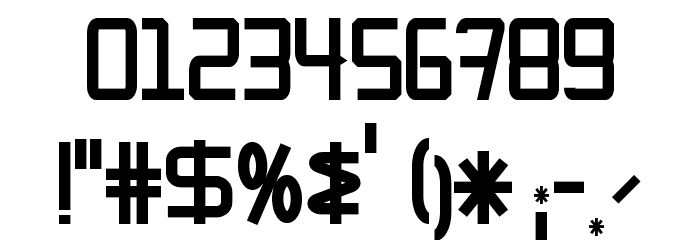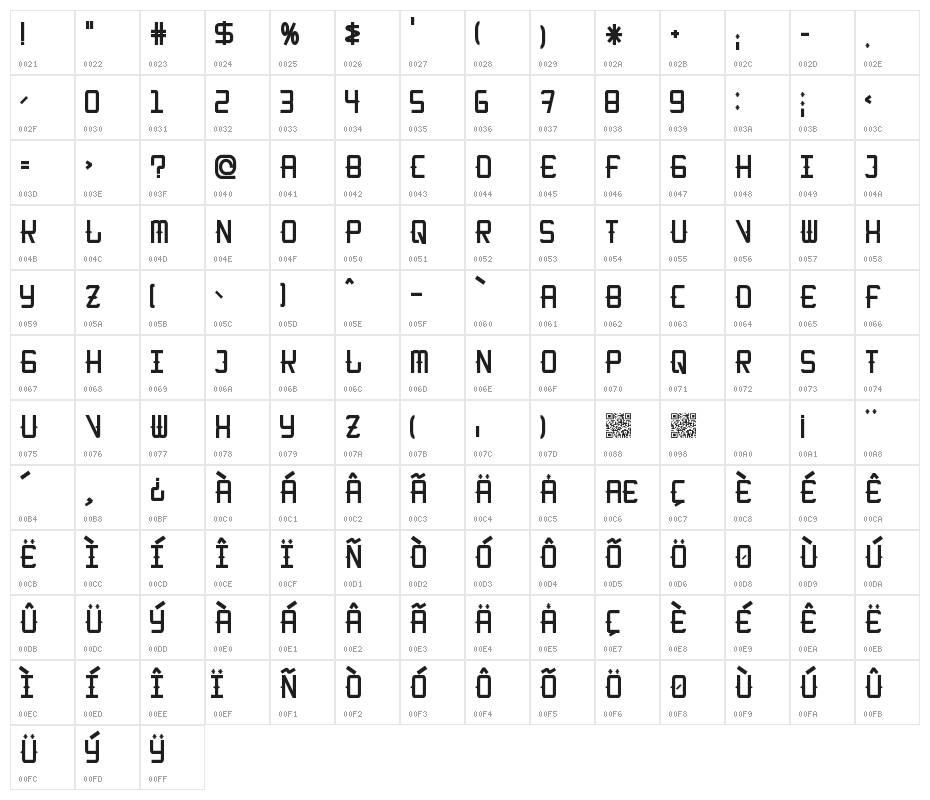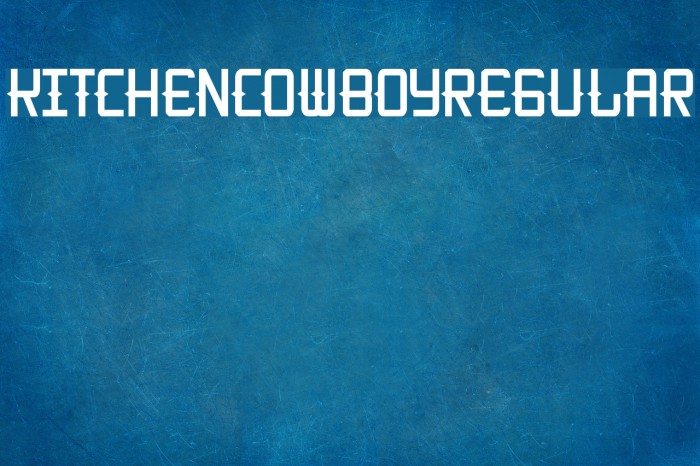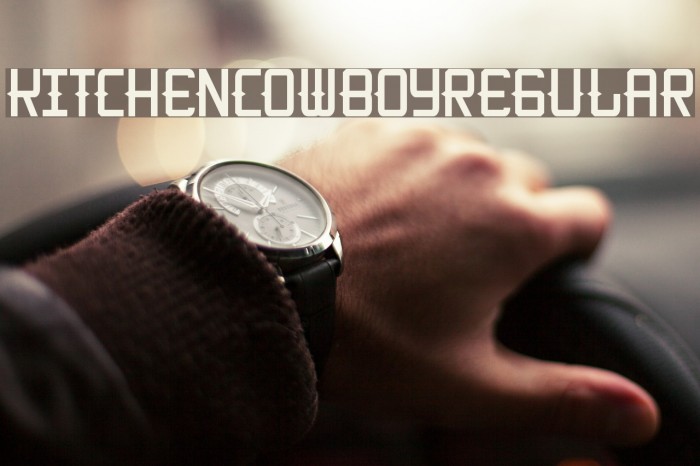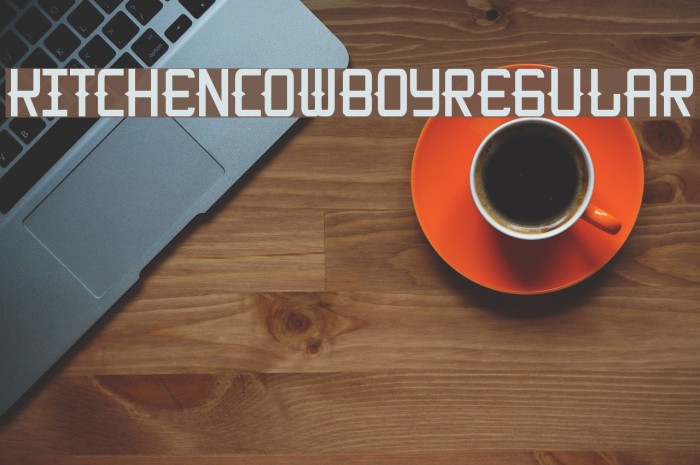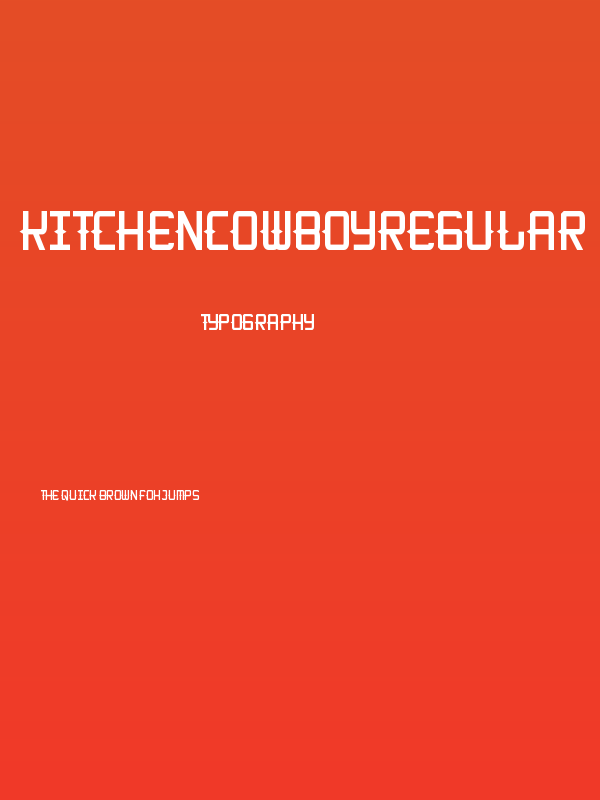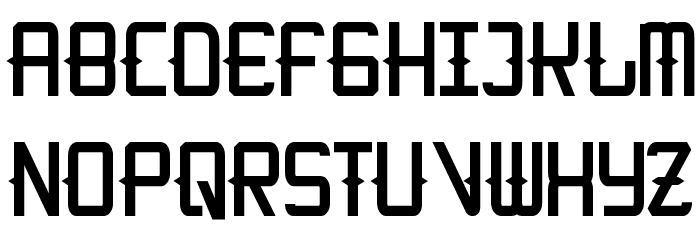
KitchenCowboyRegular Font
KitchenCowboyRegular Description
This font features a bold, geometric design with a modern and industrial feel. The characters are constructed with straight lines and sharp angles, giving it a distinctive, mechanical appearance. The uppercase and lowercase letters maintain a consistent height, contributing to a uniform look. The numerals and special characters follow the same design principles, ensuring cohesion across all glyphs. The font's unique style makes it suitable for projects that require a strong, impactful visual presence. Its boldness and geometric structure make it stand out, while the consistent line thickness provides a balanced and harmonious look.
| Proposed Projects | Ideal for branding, posters, headlines, and any design requiring a strong, modern aesthetic. |